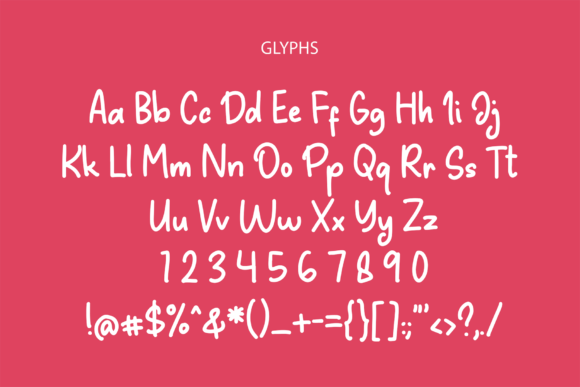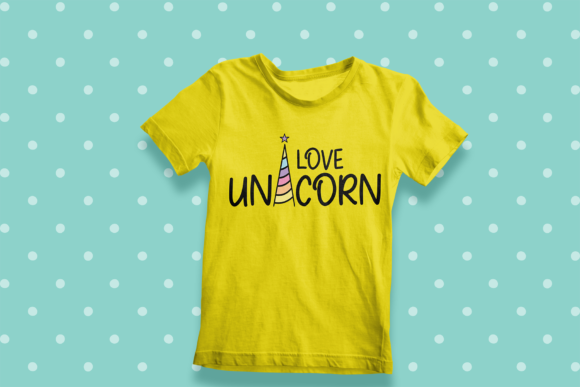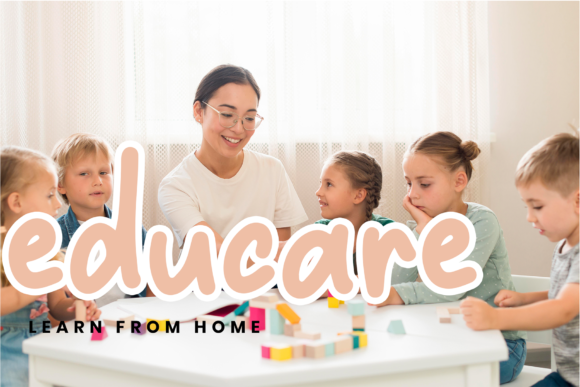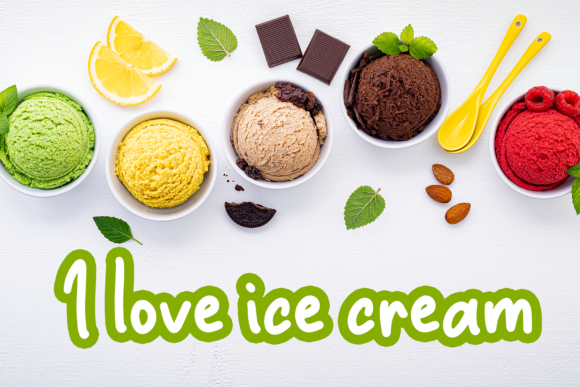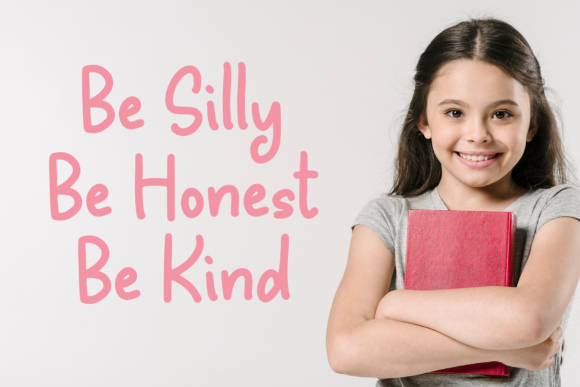
Aldos Font: The Sweet and Friendly Handwritten Font for Your Creative Projects
Are you a designer or crafter looking for a font that can add a personal touch to your creative projects? Look no further than Aldos Font, a sweet and friendly handwritten font that is perfect for a wide range of designs. With its natural and unique style, Aldos Font is incredibly versatile and can be used in a variety of contexts, from branding and advertising to crafting and DIY projects.
The Unique Characteristics of Aldos Font
Aldos Font is a handwritten font that is characterized by its sweet and friendly feel. The font has a natural, organic look that makes it perfect for designs that require a personal touch. The letters are carefully crafted to have a unique and distinctive style, with subtle variations in line width and spacing that give the font a sense of movement and energy.
One of the standout features of Aldos Font is its versatility. The font is incredibly flexible and can be used in a wide range of designs, from bold and colorful graphics to more subtle and elegant typography. Whether you’re creating a logo, a poster, or a social media graphic, Aldos Font is sure to add a touch of personality and charm to your design.
The Benefits of Using Aldos Font in Your Designs
So why should you choose Aldos Font for your designs? Here are just a few benefits of using this sweet and friendly handwritten font:
- Unique and distinctive style: Aldos Font has a one-of-a-kind look that will set your designs apart from the crowd.
- Versatile: The font can be used in a wide range of designs, from bold and colorful graphics to more subtle and elegant typography.
- Easily readable: Despite its unique style, Aldos Font is incredibly easy to read, making it perfect for designs that require a clear and concise message.
- Perfect for branding and advertising: The font’s friendly and approachable feel makes it perfect for branding and advertising projects that require a personal touch.
How to Use Aldos Font in Your Designs
Using Aldos Font in your designs is incredibly easy. Here are a few tips to get you started:
- Pair it with bold colors: Aldos Font looks amazing when paired with bold and bright colors. Try using it in combination with a bold color scheme to create a graphic that’s sure to grab attention.
- Use it for headings and titles: The font’s unique style makes it perfect for headings and titles. Try using it to add a touch of personality to your design.
- Experiment with different sizes and styles: Aldos Font is incredibly versatile, so don’t be afraid to experiment with different sizes and styles. Try using it in combination with other fonts to create a unique and eye-catching design.
Aldos Font in the World of Crafting and DIY
Aldos Font isn’t just limited to digital designs. The font is also perfect for crafting and DIY projects, such as:
- Handmade cards and invitations: Add a personal touch to your handmade cards and invitations with Aldos Font.
- Journaling and scrapbooking: The font’s unique style makes it perfect for journaling and scrapbooking projects.
- DIY signs and posters: Use Aldos Font to create eye-catching signs and posters for your home or business.
In conclusion, Aldos Font is a sweet and friendly handwritten font that is perfect for designers and crafters looking to add a personal touch to their creative projects. With its unique and distinctive style, versatility, and ease of use, Aldos Font is sure to become a favorite in your design arsenal. So why wait? Download Aldos Font today and start creating designs that are sure to impress!